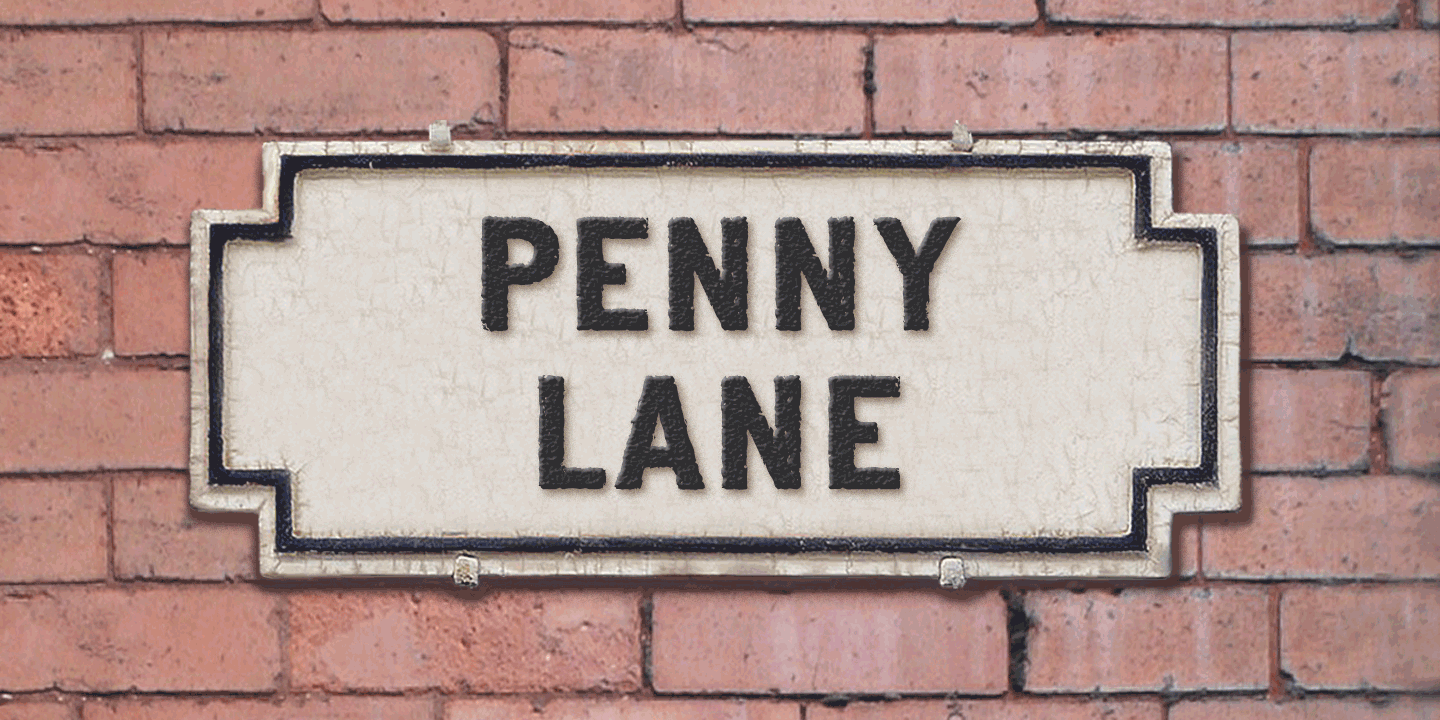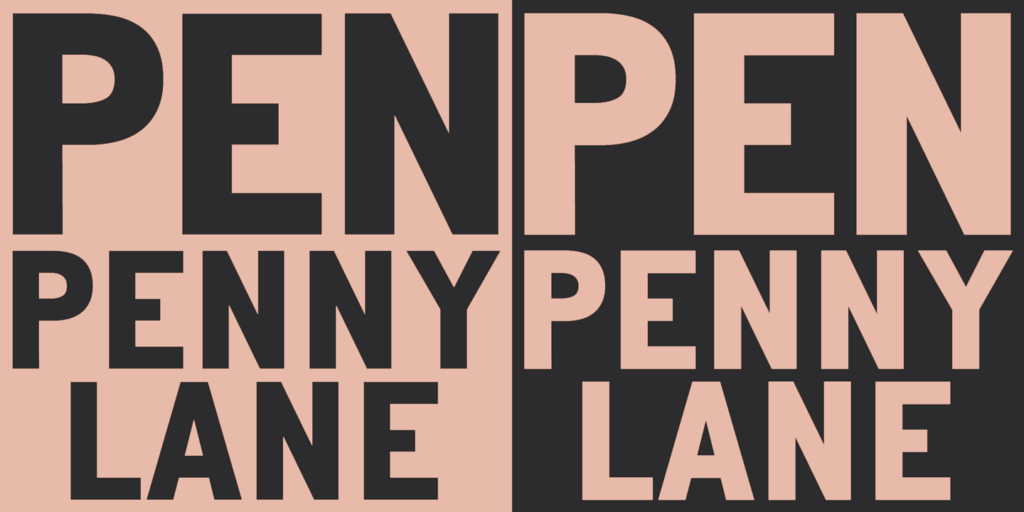
Penny Lane
About Penny Lane
Penny Lane is a sans serif derived from twentieth-century cast-iron signs displaying Liverpool street names. Although the lettering used for vintage street signs varies in width and style, the semi-condensed Penny Lane Bold is fairly typical. The waist…